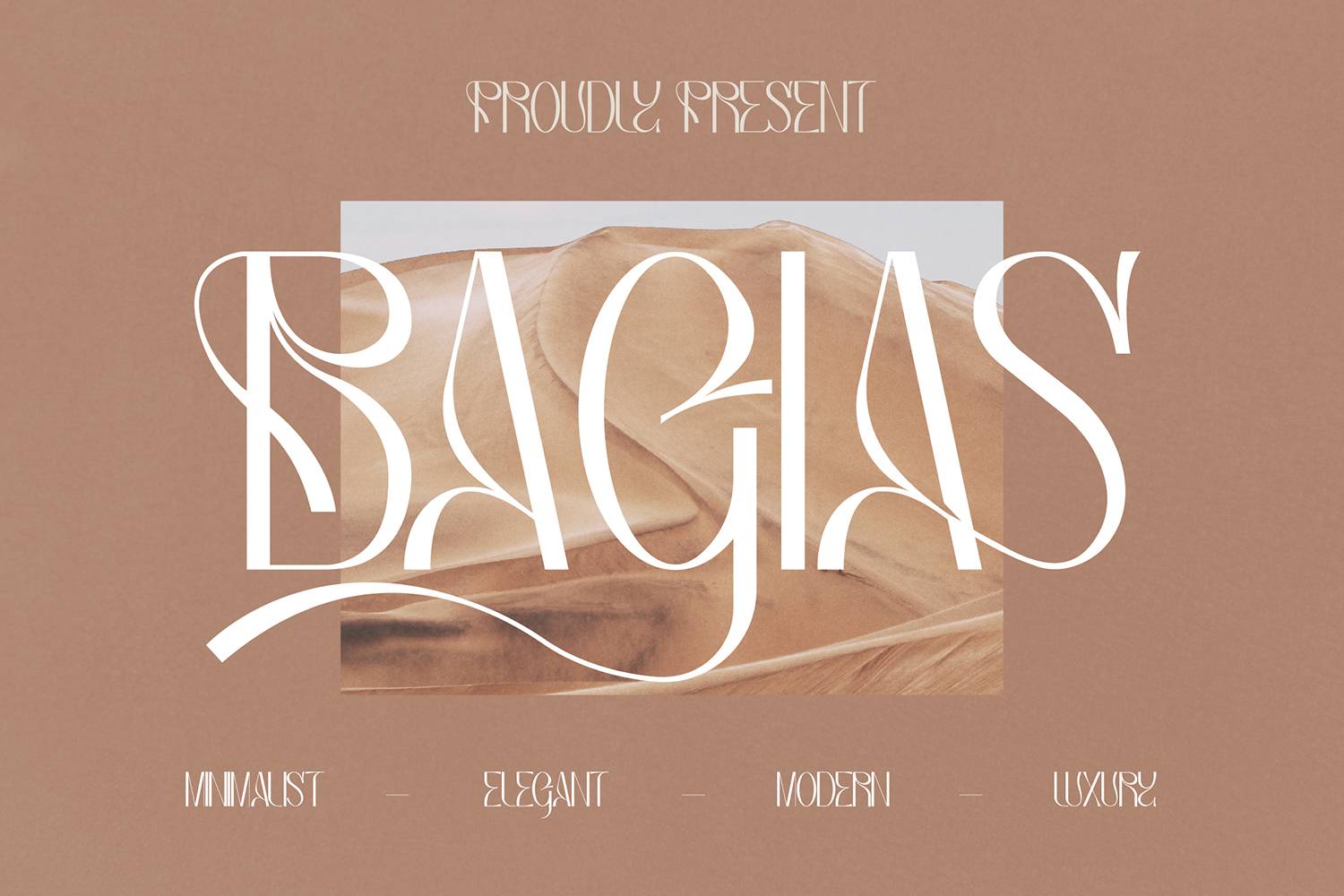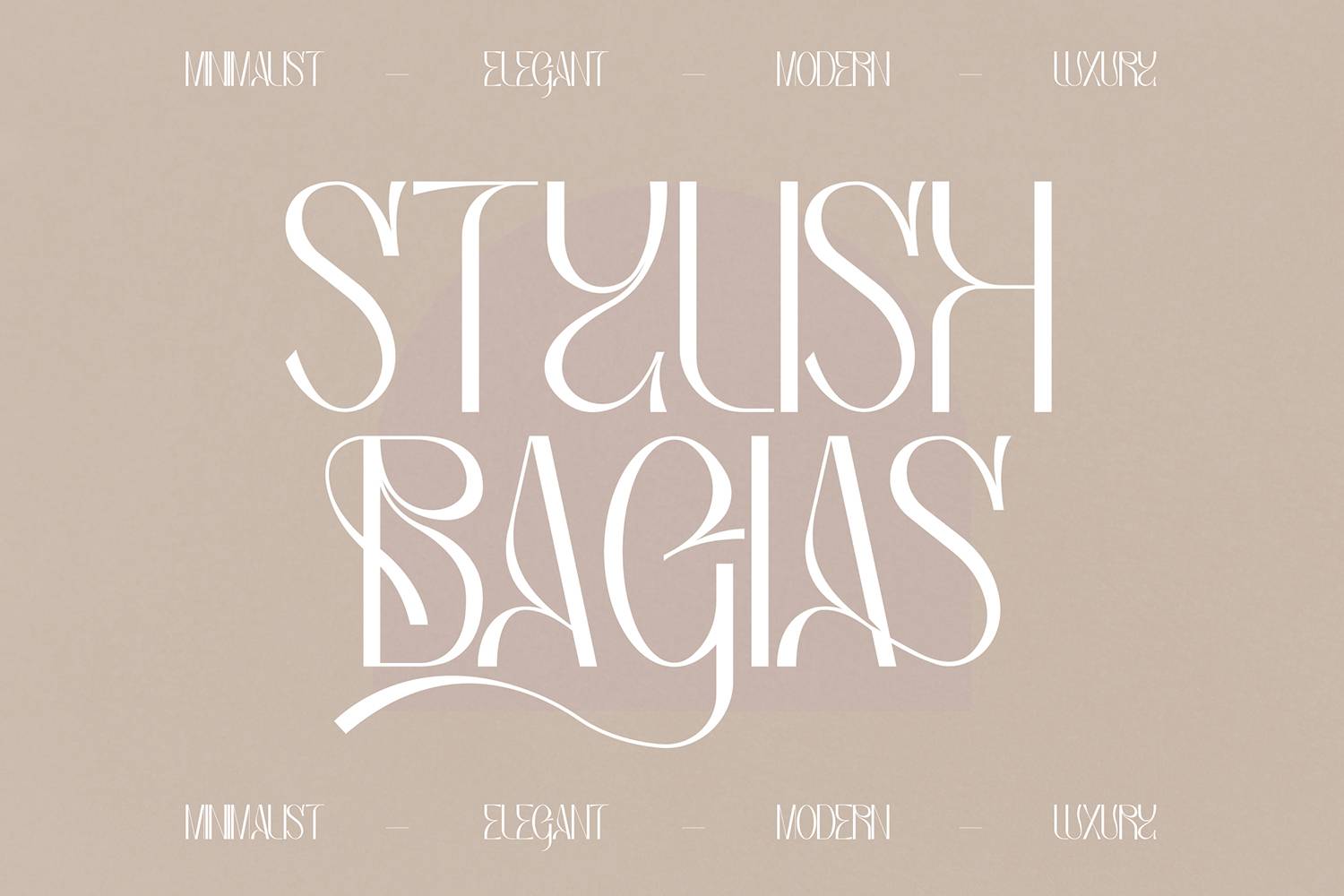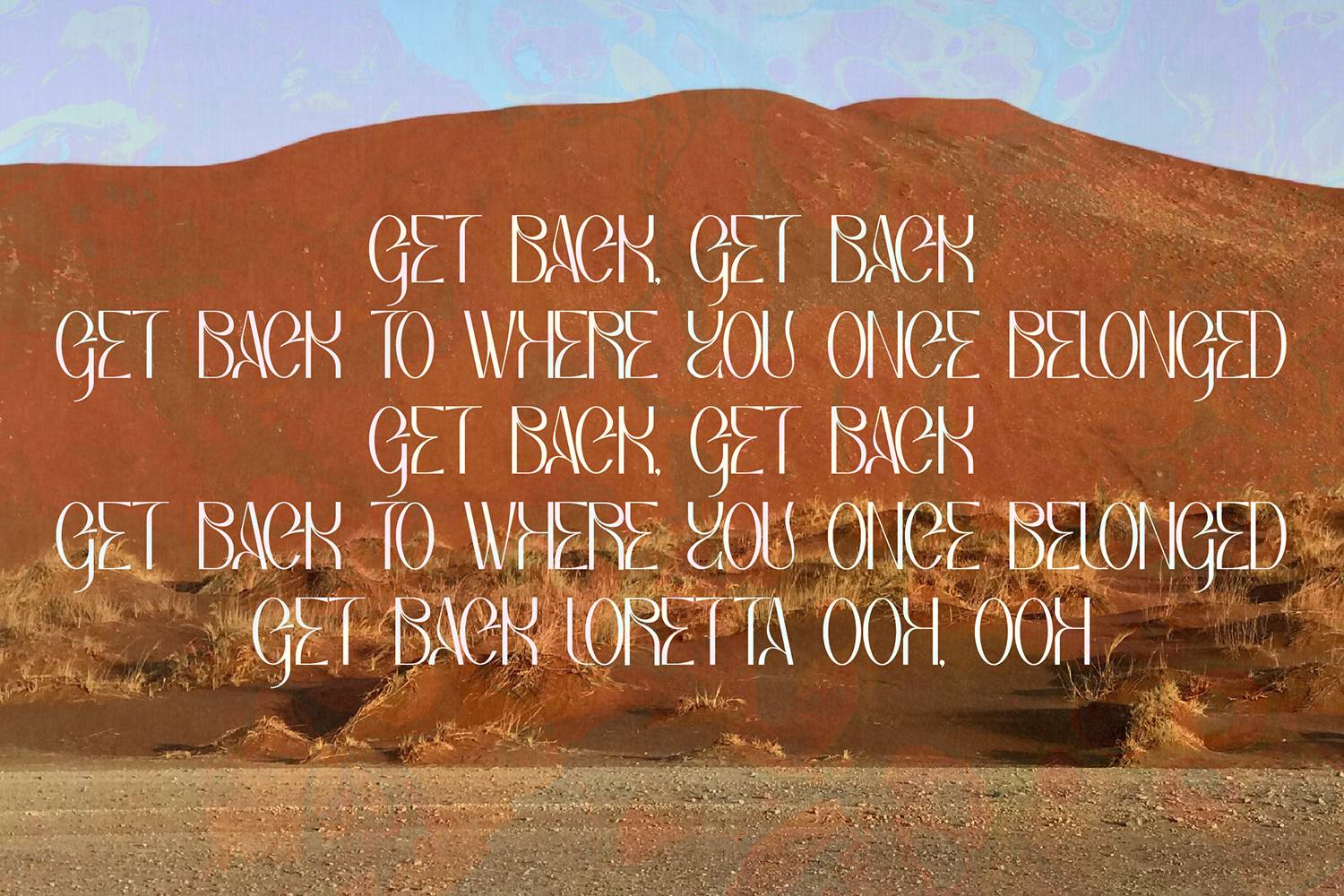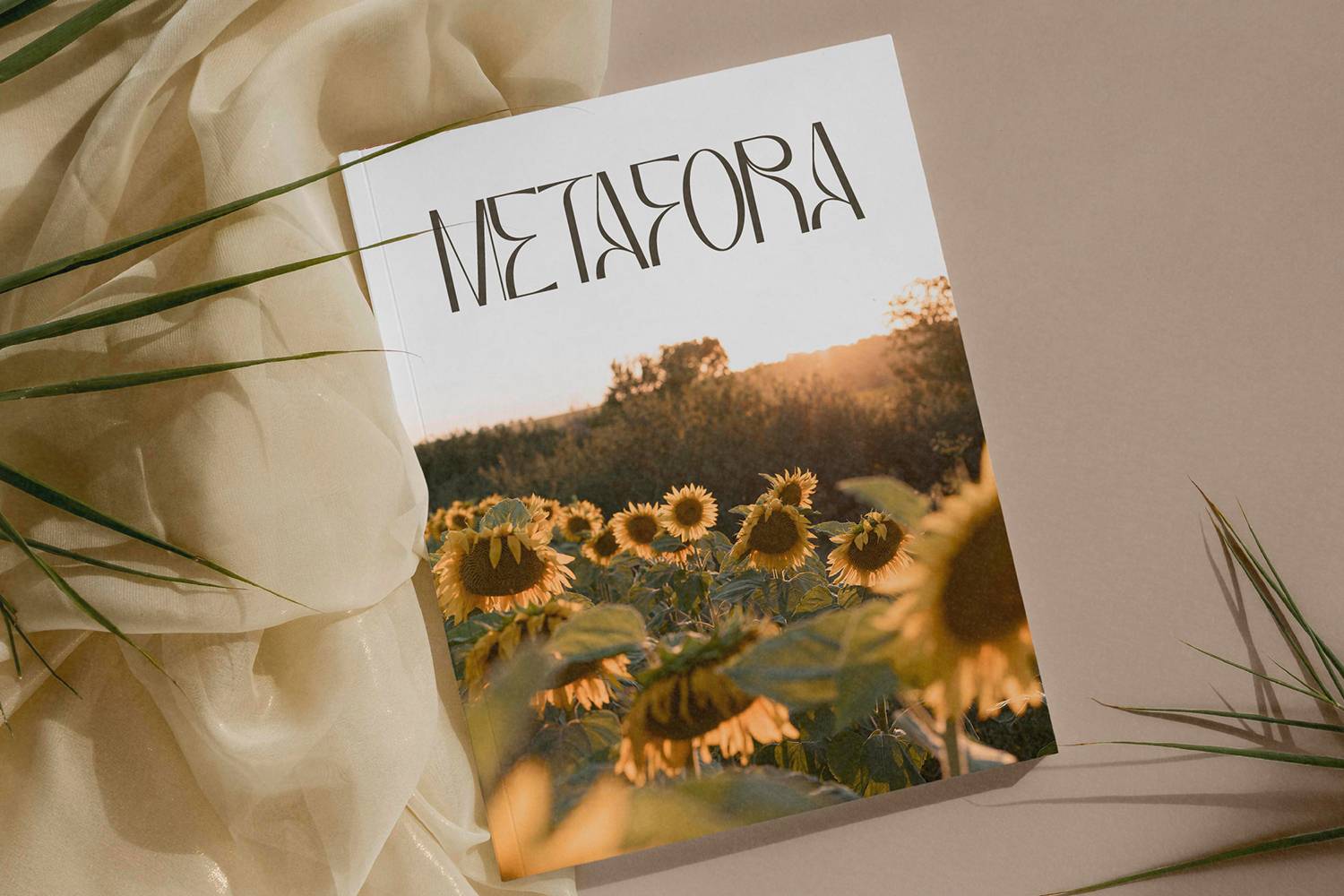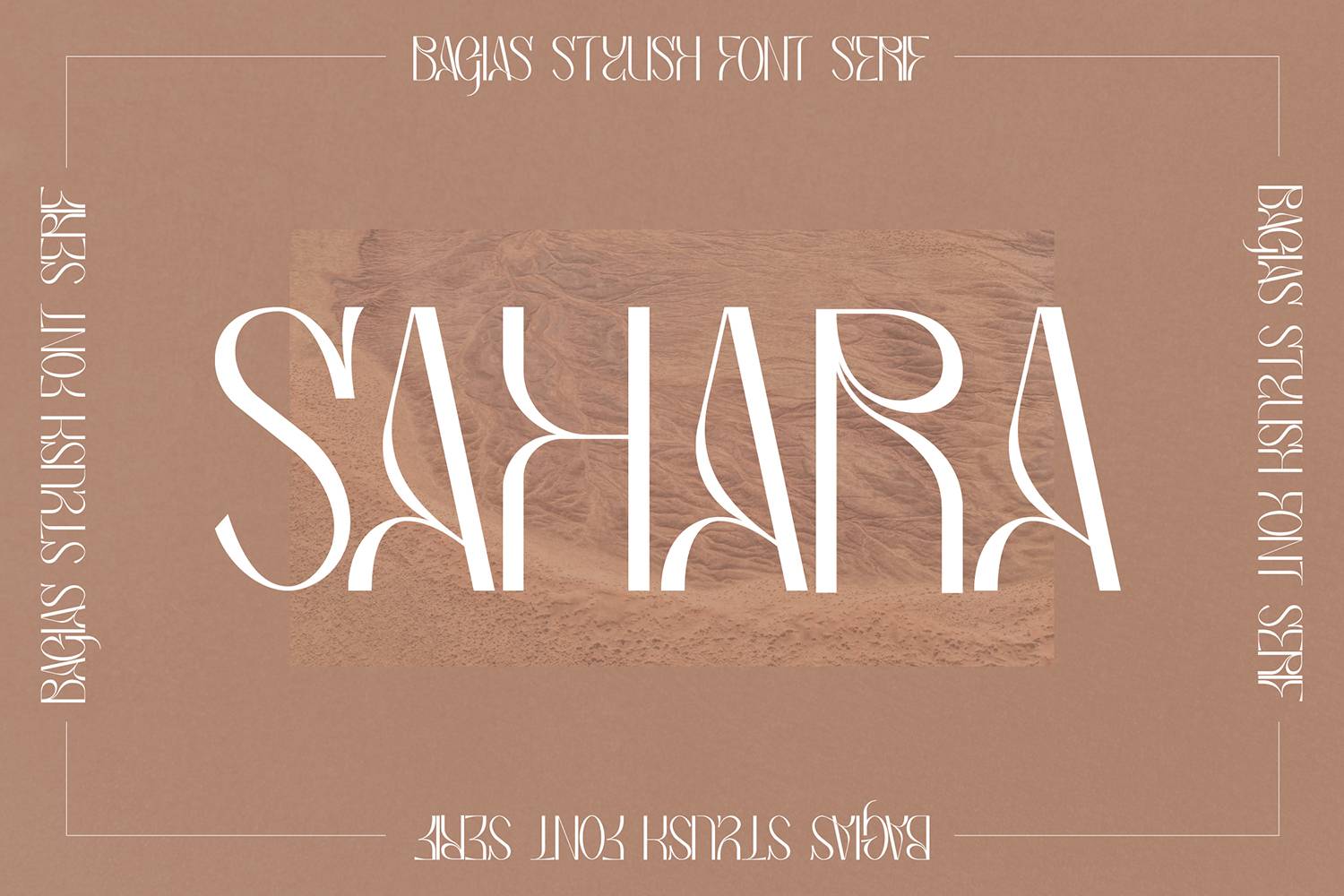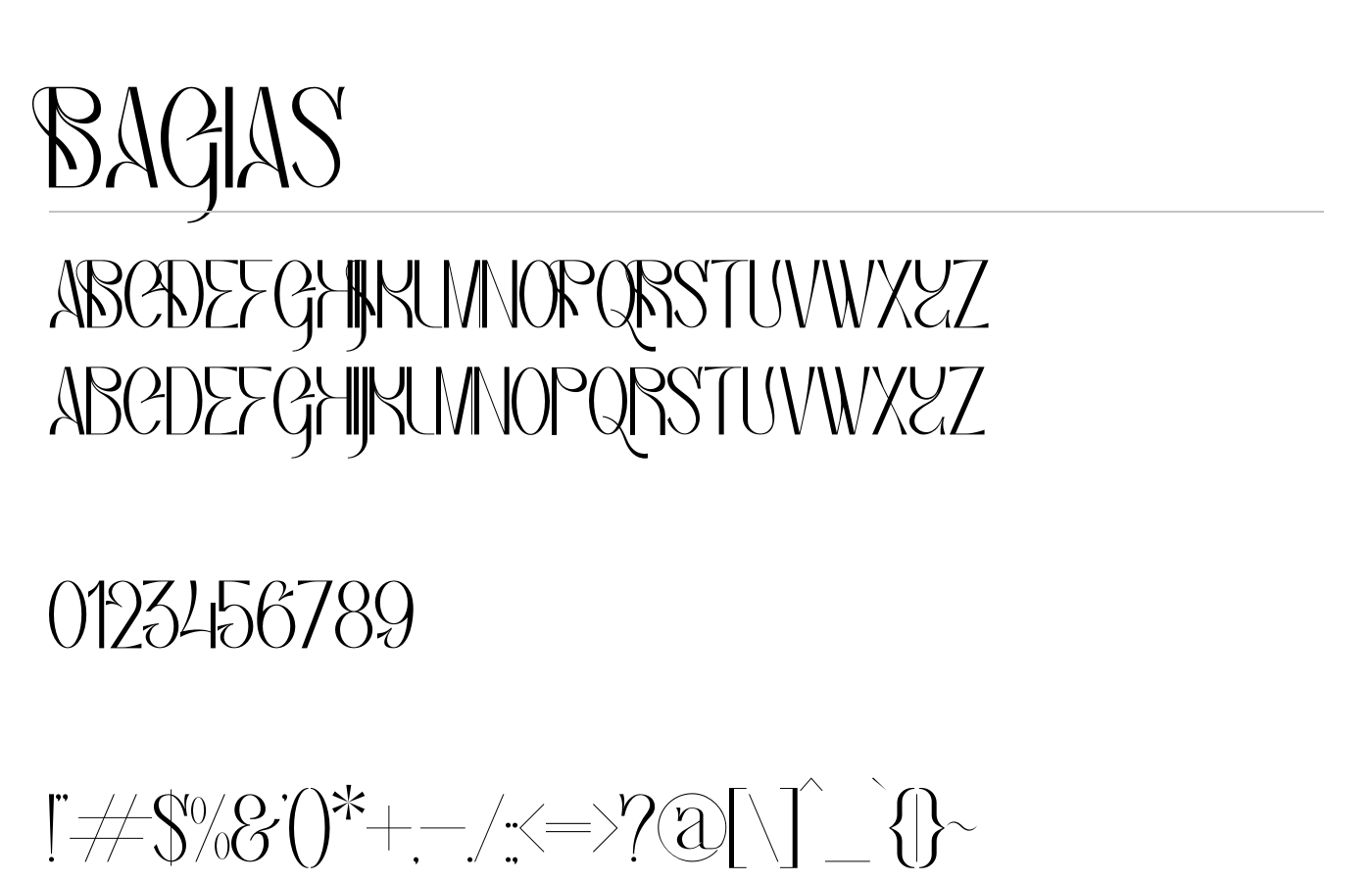
Bagias Font is a stylish serif typeface with tall, narrow letterforms and elegant high contrast between thick and thin strokes, giving it a refined, artistic flair. Its unique, ornamental details and delicate curves make it perfect for sophisticated branding, luxury packaging, and high-end editorial headlines where a distinctive, couture aesthetic is desired. This font excels in creating a modern yet timeless impression that communicates elegance and creativity.
Bagias Font
About Bagias Font